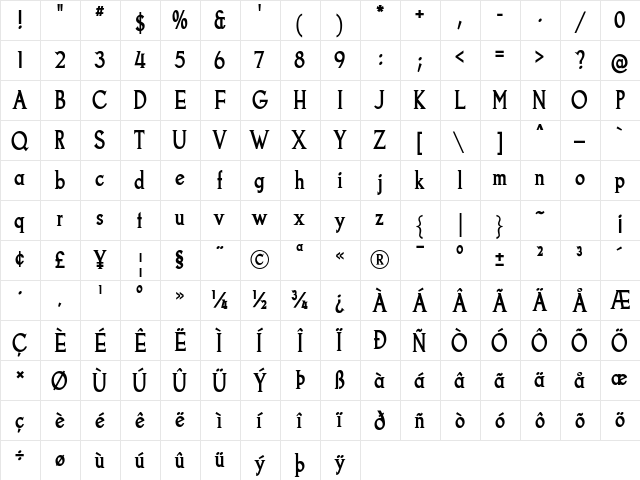
Goodfish Bold
Design Context for Goodfish Typeface
Goodfish takes a measured approach to typography — its balanced proportions and neutral character make it a reliable workhorse for both digital and print work. The heavy weight commands attention and anchors typographic hierarchies.